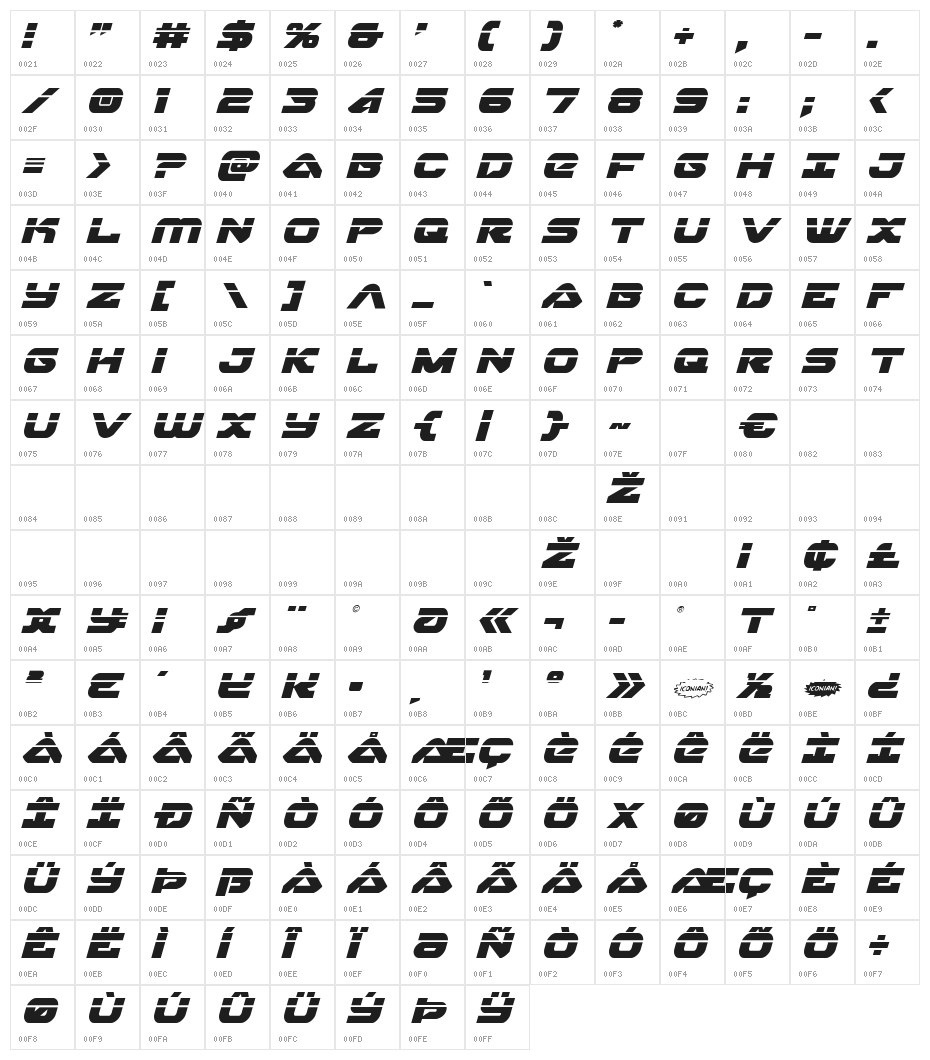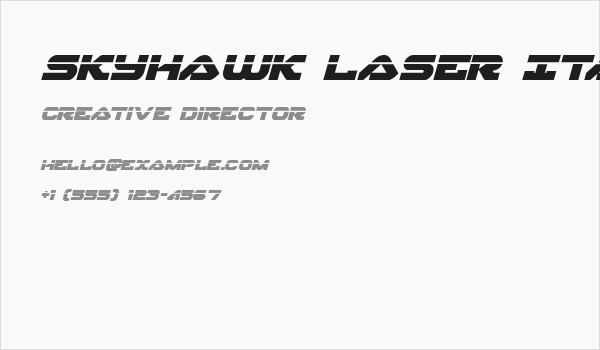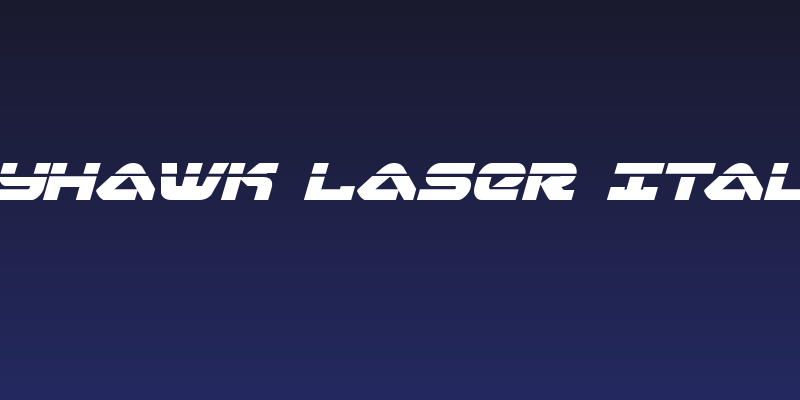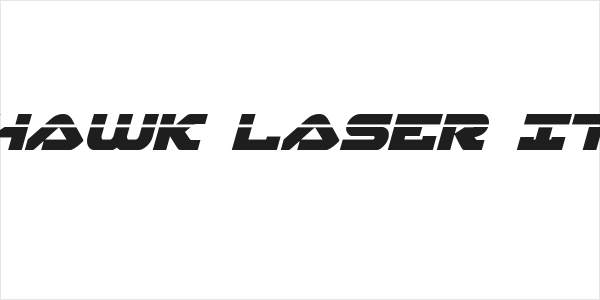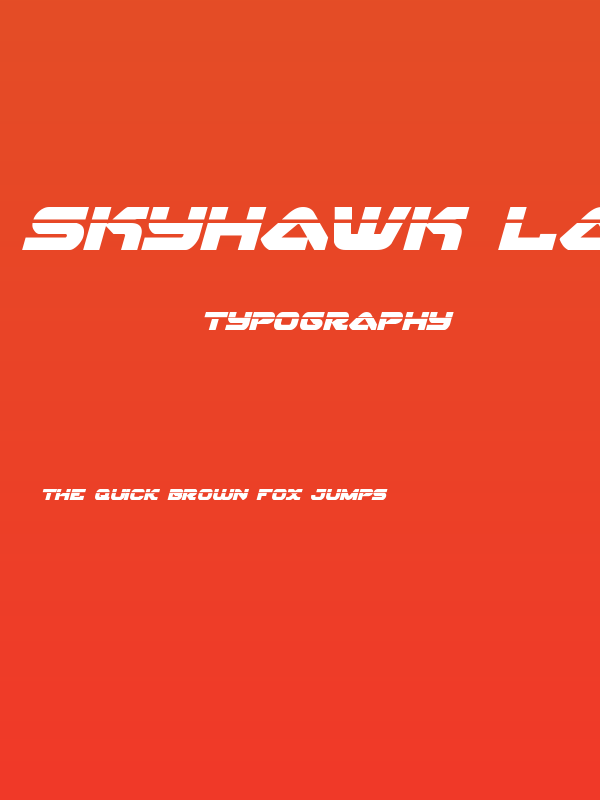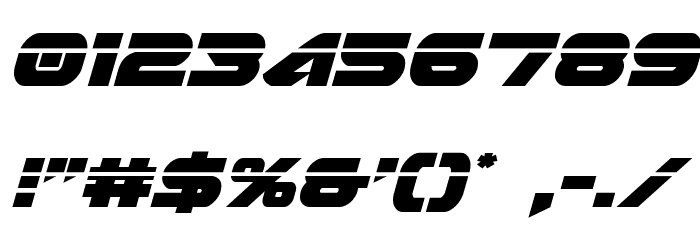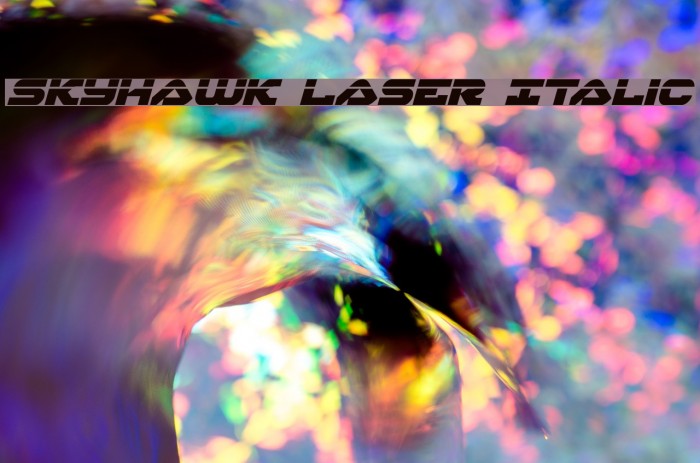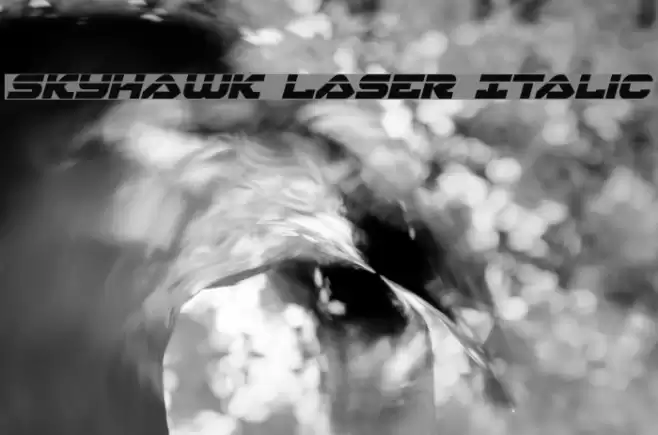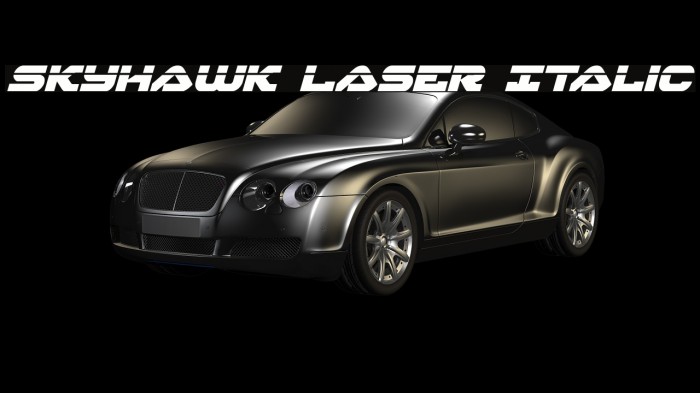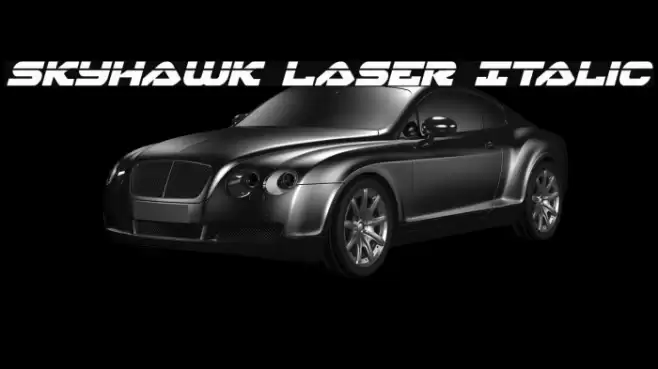
Skyhawk Laser Italic Font
Skyhawk Laser Italic Description
This font features a bold, futuristic design with sharp, angular edges and a distinct italic slant. The characters are wide and have a strong presence, making them ideal for attention-grabbing headlines or branding. The uppercase and lowercase letters maintain a consistent style, with a geometric influence that gives the font a modern and dynamic appearance. The numbers and special characters are designed to match the boldness and angularity of the letters, ensuring a cohesive look across all text elements. The font's unique style is reminiscent of sci-fi themes and high-tech aesthetics, making it suitable for projects that require a cutting-edge and innovative feel.
| Overall Style | Futuristic, Modern |
| Proposed Projects | Ideal for sci-fi themed designs, tech branding, video game titles, and futuristic posters. |